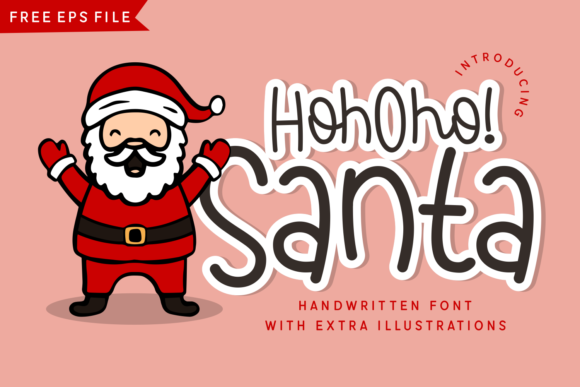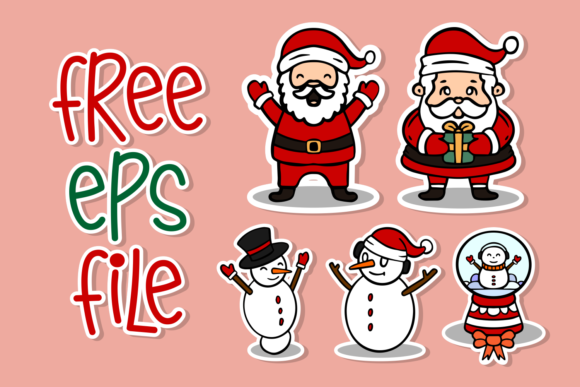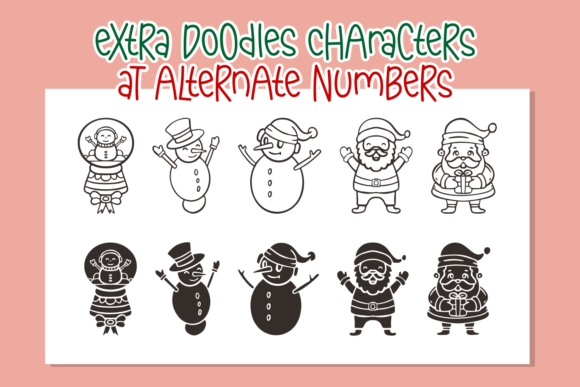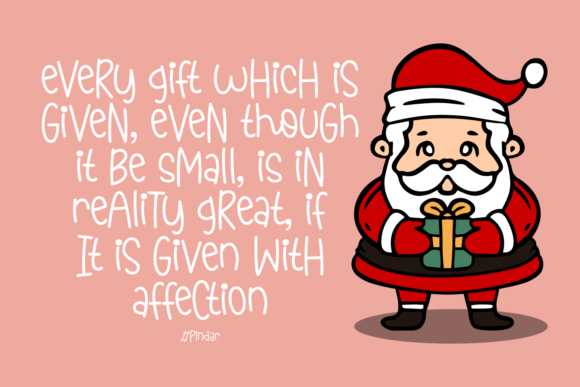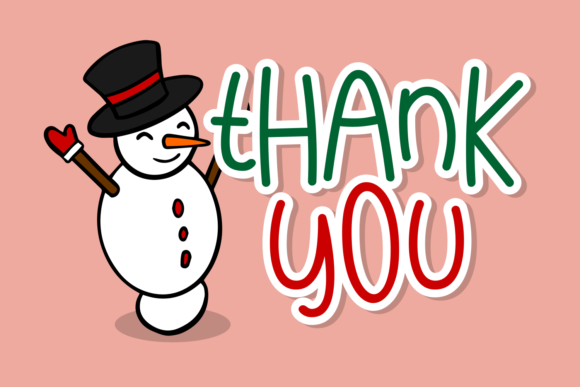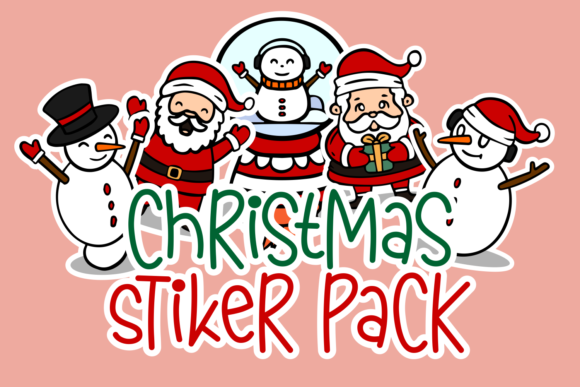
Hohoho Santa Font
About Hohoho Santa Font
Hohoho Santa is a cute and dainty handwritten font that features sweet and delicate swashes. This original look will appeal to a wide range of crafty ideas, from letterheads and titles, to stationery.